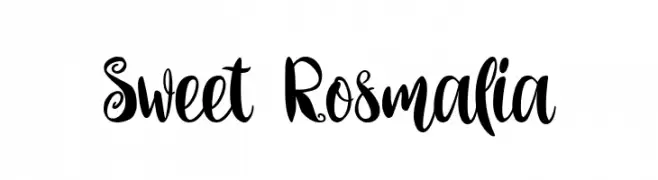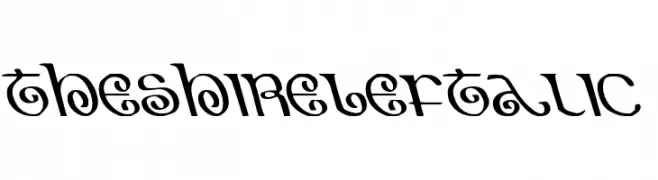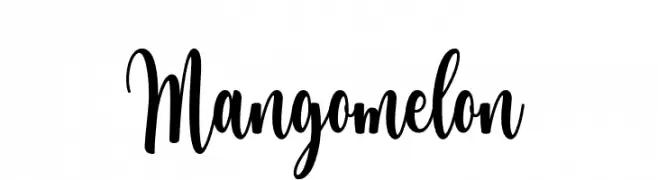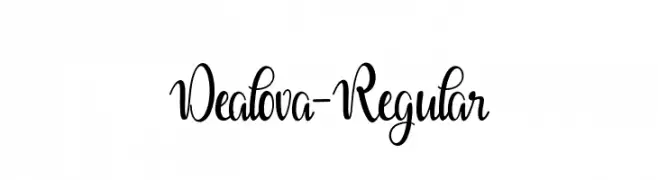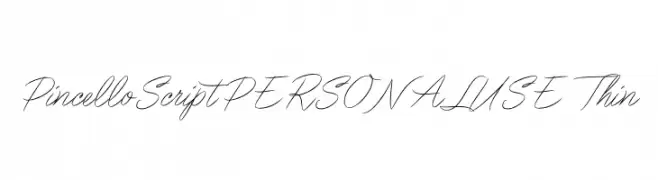
A whimsical and playful script font with decorative swirls and loops.
An elegant and sophisticated cursive script font with fluid, connected letters.
A sleek, condensed italic font with a futuristic and angular design.
A lively and expressive script font with playful loops and swirls.
A futuristic, italic font with parallel line detailing and a dynamic, modern style.
A whimsical, decorative font with medieval-inspired swirls and curls.
A playful and elegant handwritten script font.
A playful, hand-drawn font with a whimsical and informal style.
An elegant script font with flowing curves and decorative flourishes.
A thin, elegant script font with graceful curves and a calligraphic style.